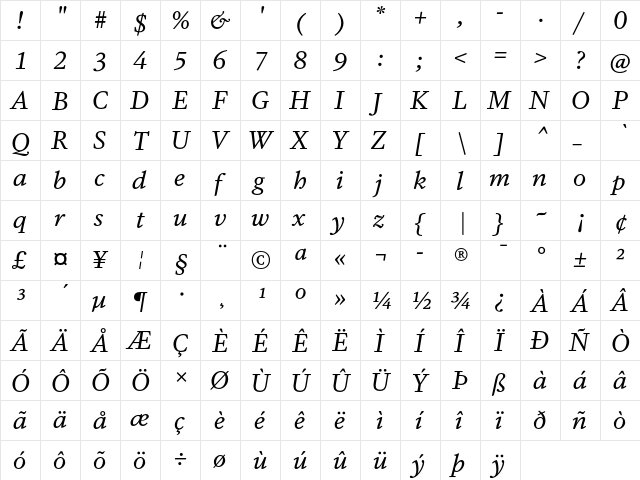
DB Serif TF Regular Italic Font Preview
DB Serif TF Regular Italic
Design Context for DB Serif TF Typeface
DB Serif TF carries the refined structure of traditional serif typography, with bracketed terminals and considered proportions that communicate credibility and craft. Its italic angle brings a sense of urgency and motion to the letterforms.
Pro Tip: Set DB Serif TF with slightly loose tracking in headlines to let each letterform's detail read clearly at display sizes.